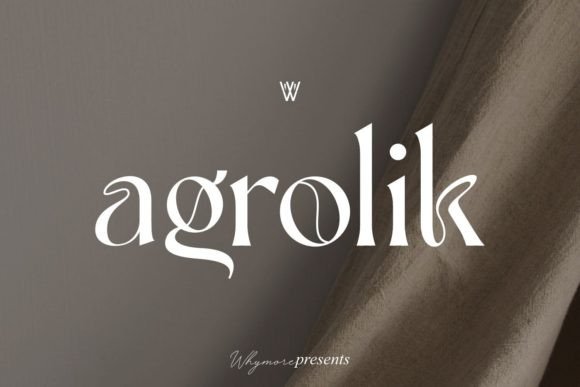
The Agrolik Font: Elevate Your Designs with Elegance
I’ll never forget the moment I stumbled upon the perfect font for a client’s wedding invitation project. I had been searching for hours, trying out different fonts, but none seemed to fit the elegant and sophisticated vibe I was going for. That was until I discovered Agrolik, an exquisite serif font that instantly elevated my design. In this article, I’ll share my experience with Agrolik, its features, and how to make the most of it in your designs.
An Honest Review of Agrolik
What I Love About Agrolik ✨
- 💯 Balanced and varied: Agrolik’s delicate and classy look makes it perfect for a wide range of projects, from wedding invitations to luxury branding.
- ✅ Elegant serif details: The font’s subtle serif features add a touch of sophistication to any design.
- 🌈 Versatile: Agrolik works beautifully in both digital and print formats, making it a great addition to any designer’s toolkit.
- ⚠️ Limited availability of extended language support: While Agrolik covers the basics, it may not support more exotic languages or characters.
- 🤔 Some users may find it too similar to other serif fonts: With so many great serif fonts out there, Agrolik’s uniqueness might not immediately stand out to everyone.
Agrolik, like many modern fonts, comes with a range of OpenType features and glyphs that can enhance your designs. These include:
- Stylistic alternates: Swapping certain letterforms for stylistic variations.
- Ligatures: Combining letters for a more fluid look.
- Glyphs: Accessing additional characters and symbols.
The Story Behind Agrolik
Agrolik was designed with the intention of creating a font that embodies elegance and sophistication without being too ornate or overwhelming. Inspired by classic serif fonts, Agrolik’s creator aimed to produce a typeface that would be both timeless and versatile. Whether it’s for a wedding invitation, a luxury brand, or a literary magazine, Agrolik was crafted to bring a touch of class to any project.
Q: What makes Agrolik unique?
A: Agrolik’s uniqueness lies in its balanced and varied design, making it not too thin or too thick. This balance, combined with its elegant serif details, sets it apart from other serif fonts.
Q: Does Agrolik support OpenType features?
A: Yes, Agrolik supports OpenType features, including stylistic alternates, ligatures, and glyphs, allowing for a wide range of typographic variations.
Q: Is Agrolik suitable for body text?
A: Absolutely. While Agrolik shines in titles and headings, its clear and elegant design makes it suitable for body text as well, especially in longer reads where readability is key.